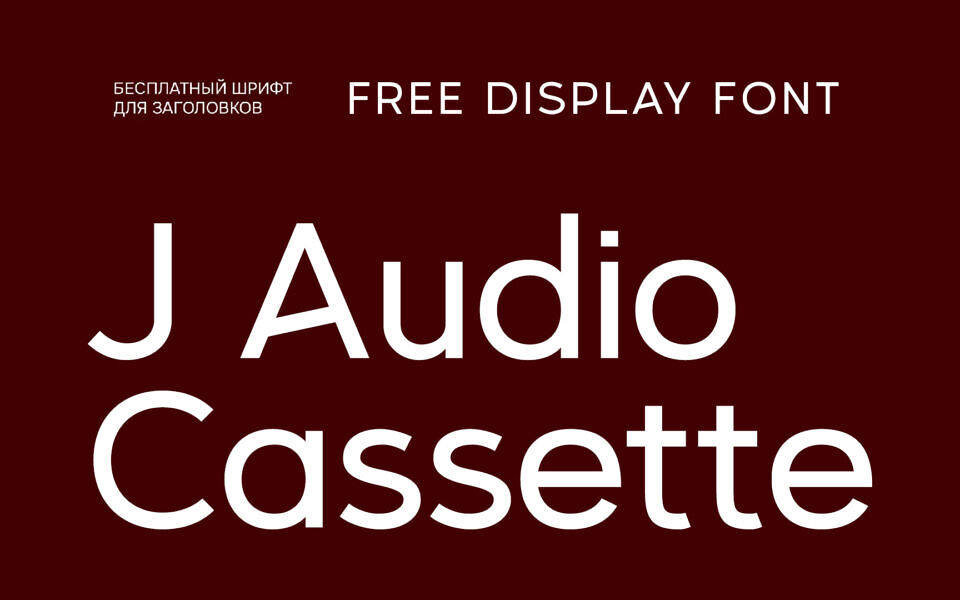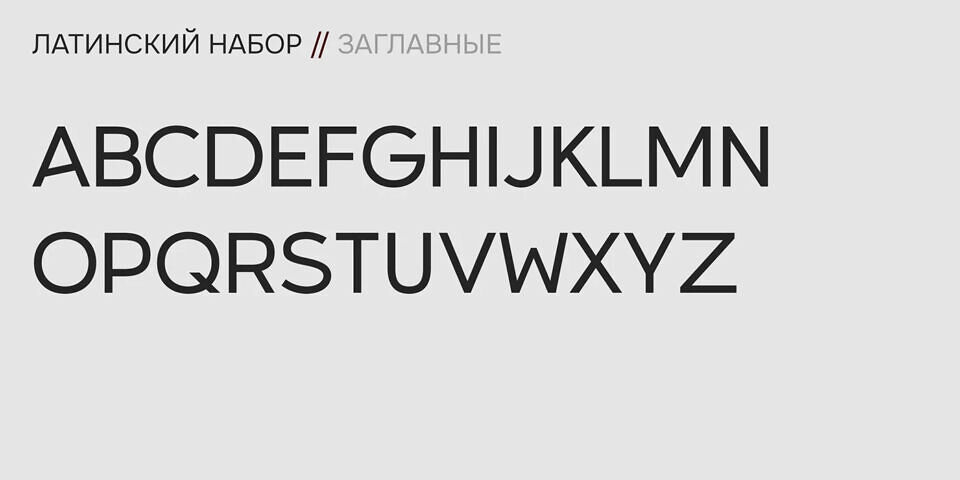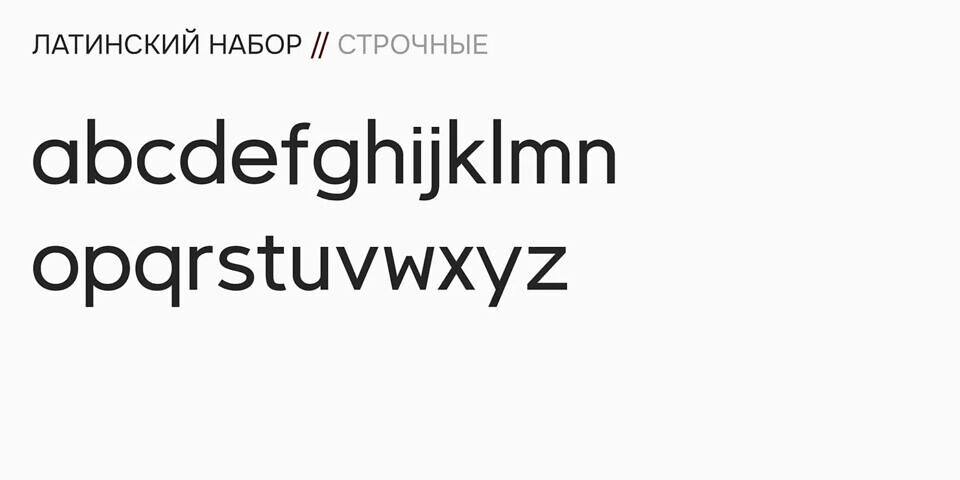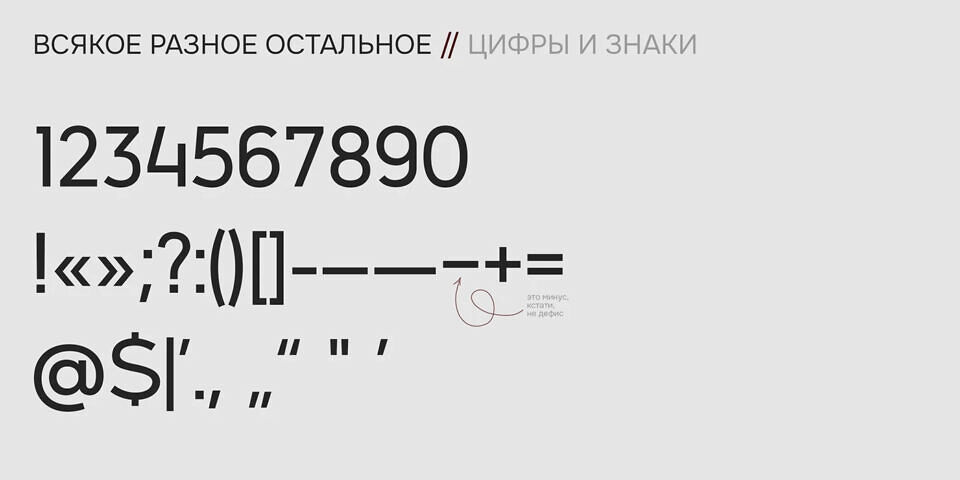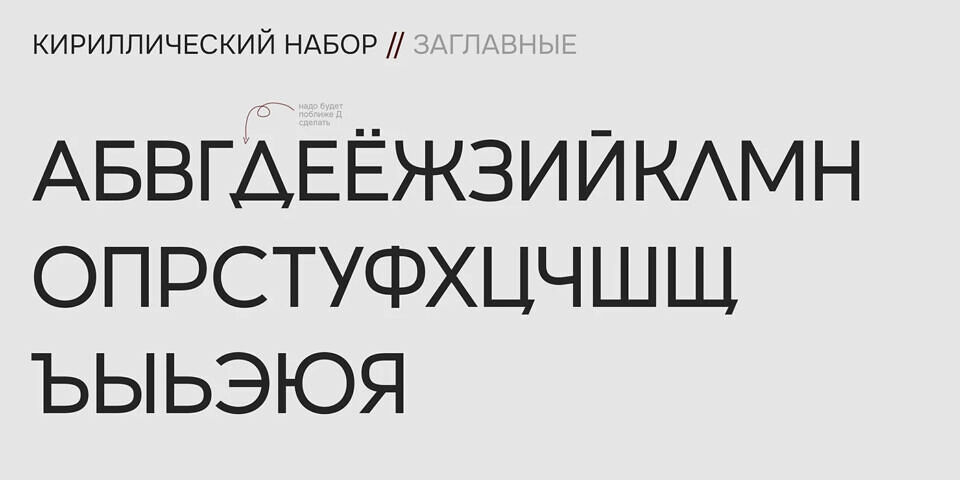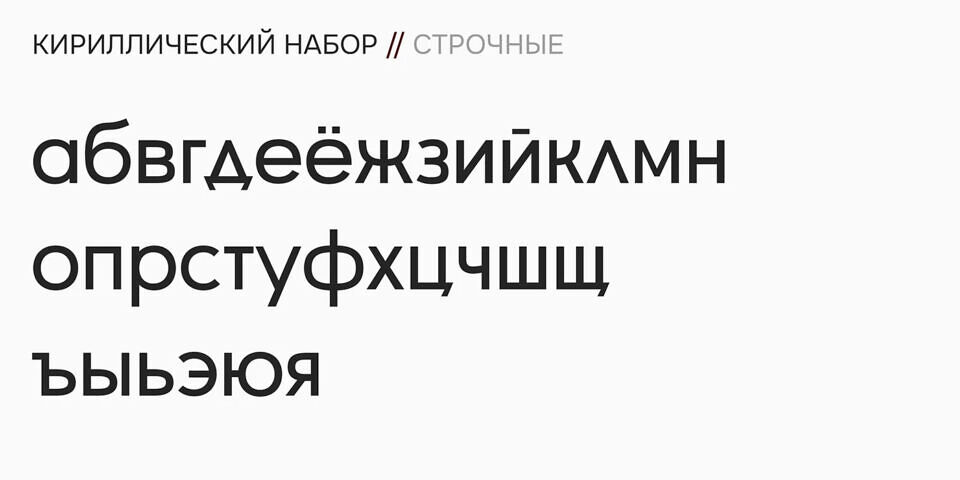
J Audio Cassette is a free sans serif display font inspired by retro tape culture, capturing the nostalgic feel of vintage audio cassettes and analog music design.
Its letterforms feature playful, stylized shapes that echo the aesthetic of labels and mixtapes, making it perfect for eye-catching titles, posters, and branding. With a strong personality and throwback vibe, it brings a unique, expressive touch to creative projects that aim for a classic yet modern retro look.